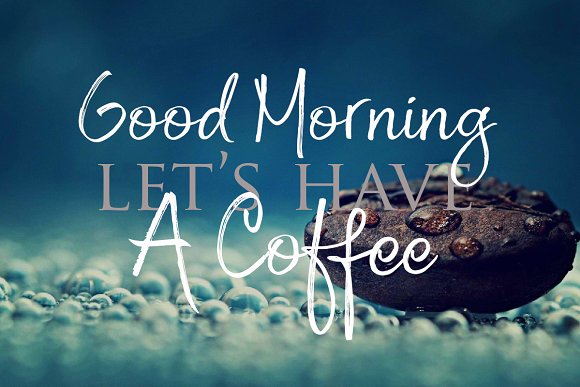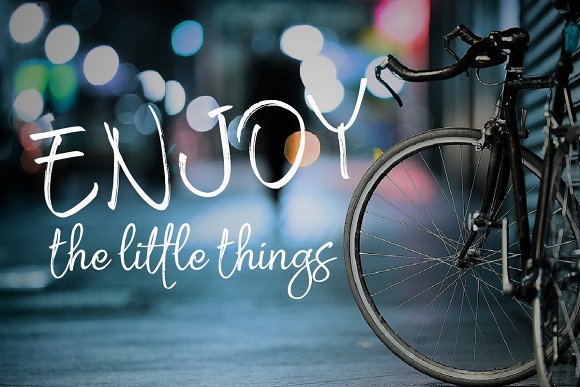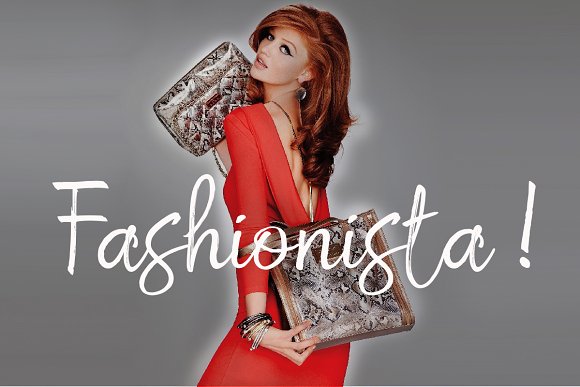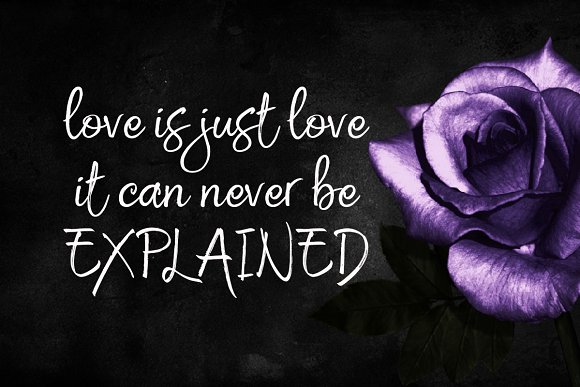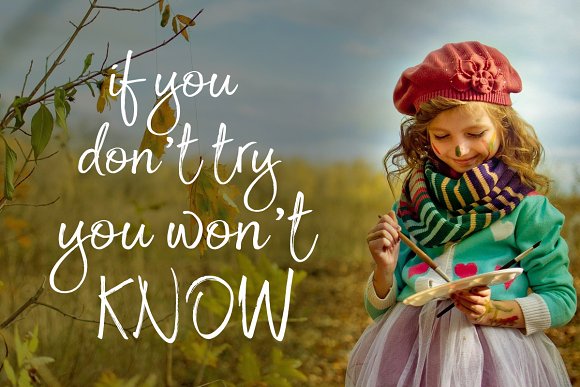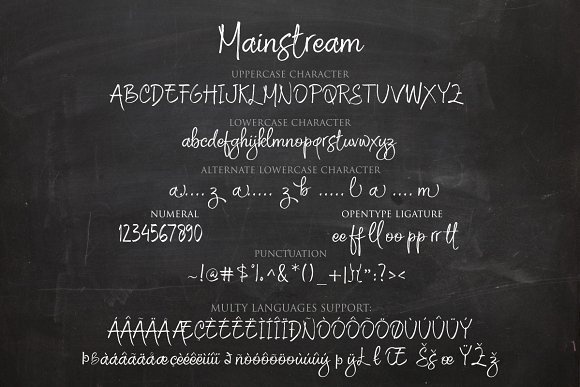
Introduction to Mainstream Font
Do you remember the moment when a single font changed the entire aesthetic of your creative project? For designers, this experience is a familiar one. It’s that instant when everything clicks into place, and the message shines through with clarity and style. This is exactly what the Mainstream Font promises to deliver – a high-quality, hand-crafted brush font that can elevate your design to new heights.
Designed by the talented Byuly Ayika, the Mainstream Font is a true gem in the world of design resources. With its transparent background and free download option, it’s an incredibly valuable asset for any creative project. Whether you’re working on a branding campaign, a digital artwork, or a marketing brochure, this font is sure to bring a touch of sophistication and elegance to your work.
As a design resource, the Mainstream Font is a must-have for any serious designer. Its high-quality texture and unique character make it an ideal choice for projects that require a creative and professional look.
Mainstream Font
- Mainstream Font features a clean and modern design, perfect for use in logos, branding, and advertising materials.
Honest Review: Mainstream Font
I recently came across the Mainstream Font and decided to give it a try for my latest creative project. Overall, I’m impressed with the quality of this font, and it’s definitely worth considering as a design resource.
- ✨ High-quality design: The font looks sleek and modern, making it perfect for a variety of creative projects.
- ⚠️ Limited customization options: While the font is high-quality, there are limited customization options available, which may not be ideal for designers who like to get creative with their fonts.
Overall, I’m happy with my experience with the Mainstream Font. It’s a solid design resource that can add a touch of professionalism to your creative project. However, it’s worth noting that the limitations may be a drawback for some designers.
Use Mainstream Font on a transparent background to give your design a clean and minimalist look.
Common Use Cases for Mainstream Font
Mainstream Font is perfect for:
Creating social media graphics and posts.
Designing business cards and brochures.
Developing presentations and reports.